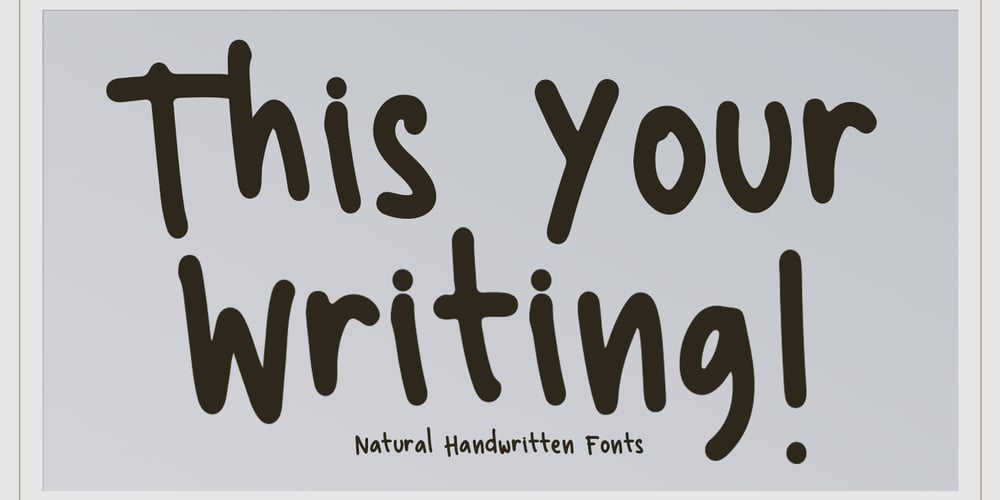
This Your Writing
This Your Writing font
This Your Writing Font Family was designed by Stefie Justprince and published by Crumphand. This Your Writing contains 1 styles and family package options. Introducing the new font “Hate Your Writing”.This font written by my daughter. Easy to read. Make your design looks stuning.What’s Character Included ? Uppercase Lowercase Numerals Symbols Multilingual Language. Thank you, Regards!